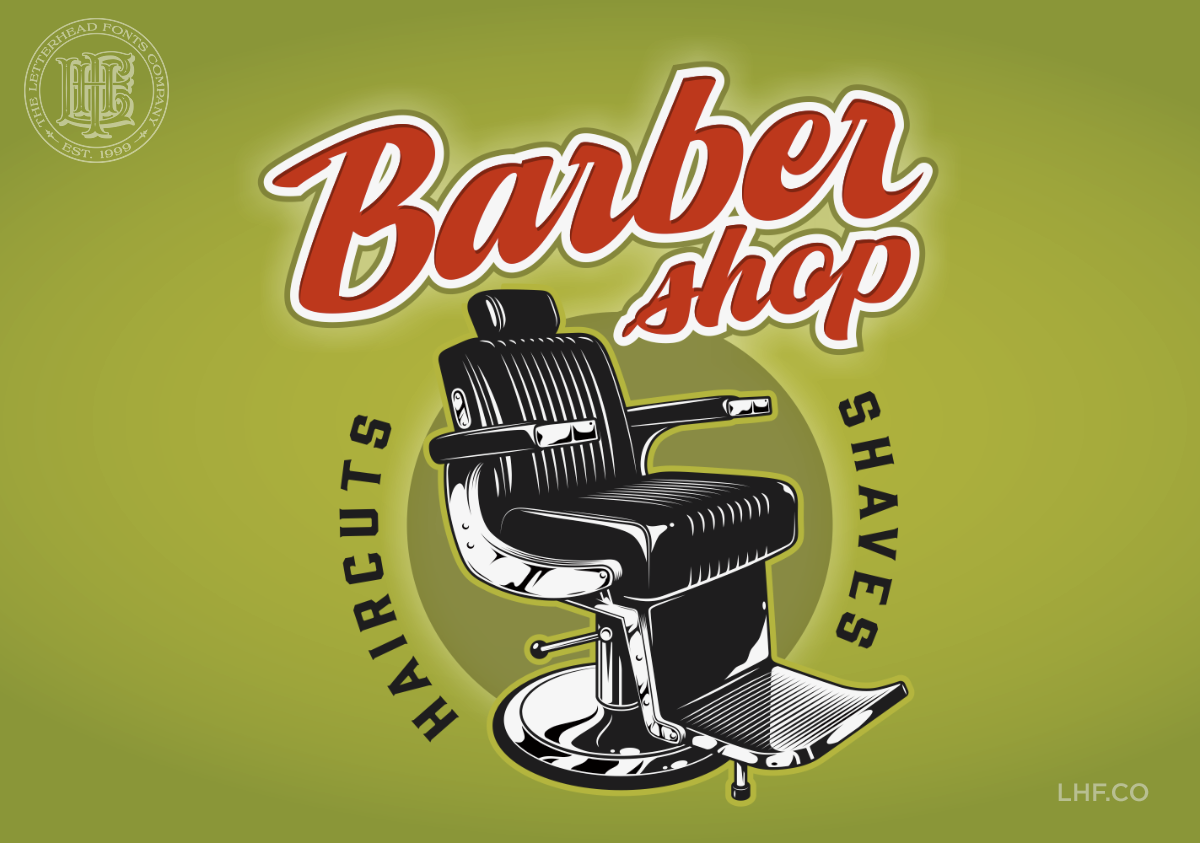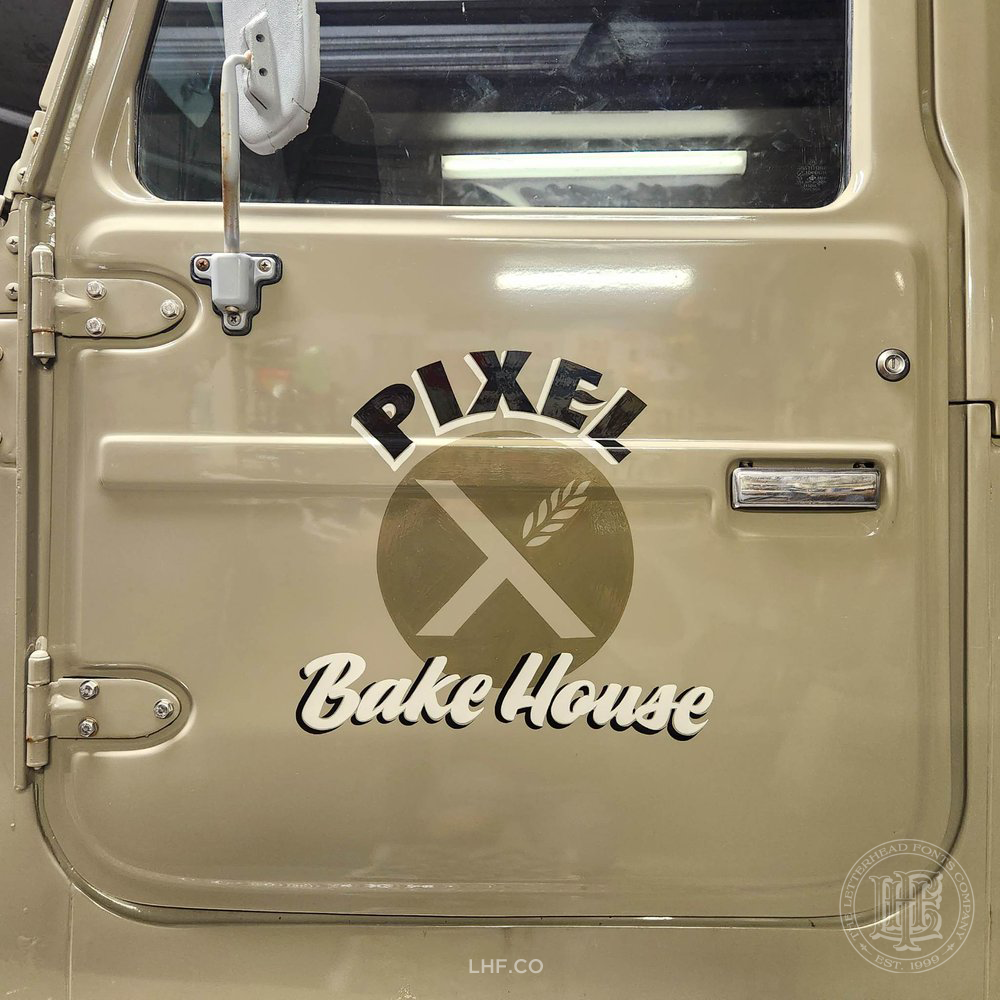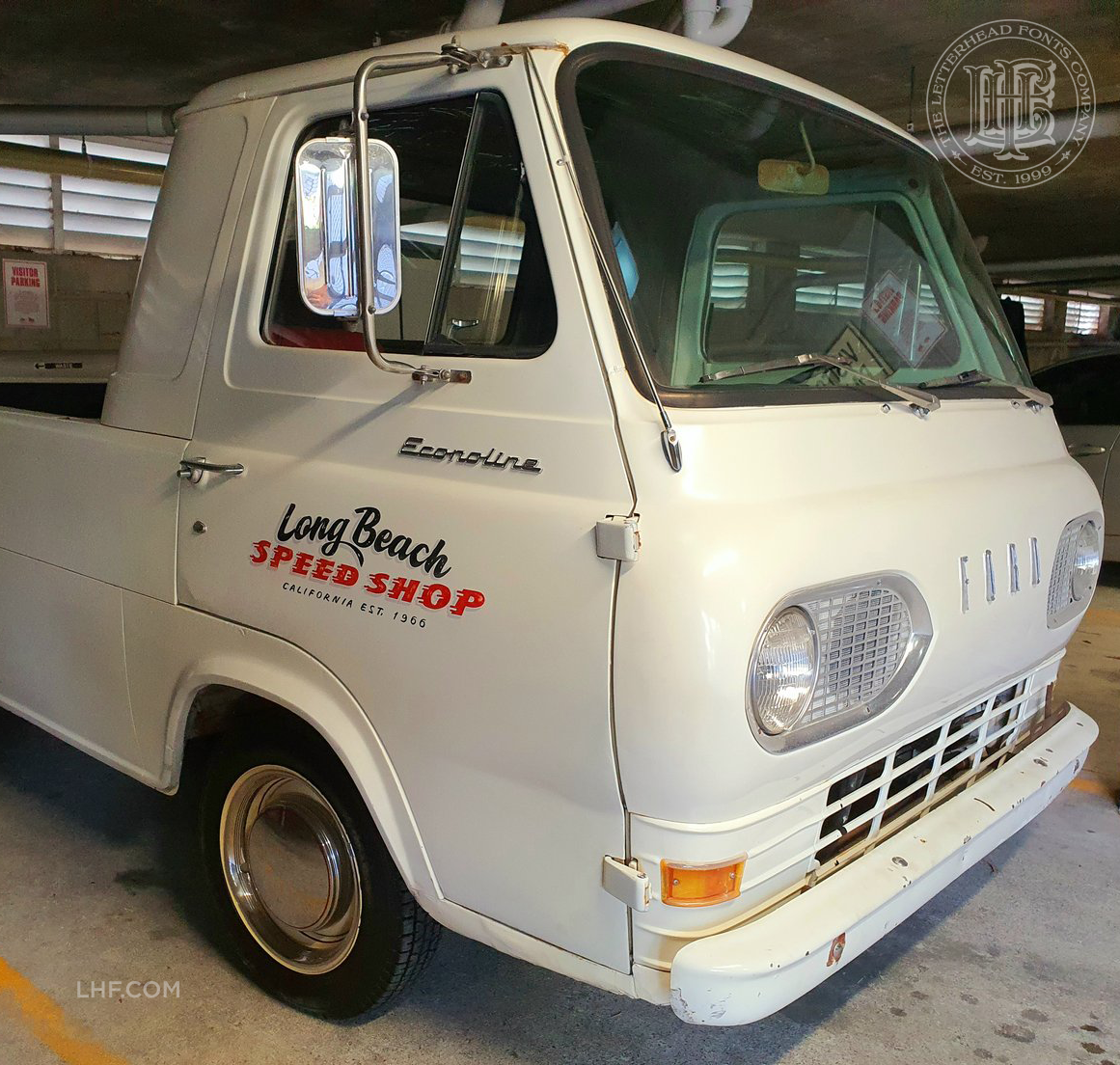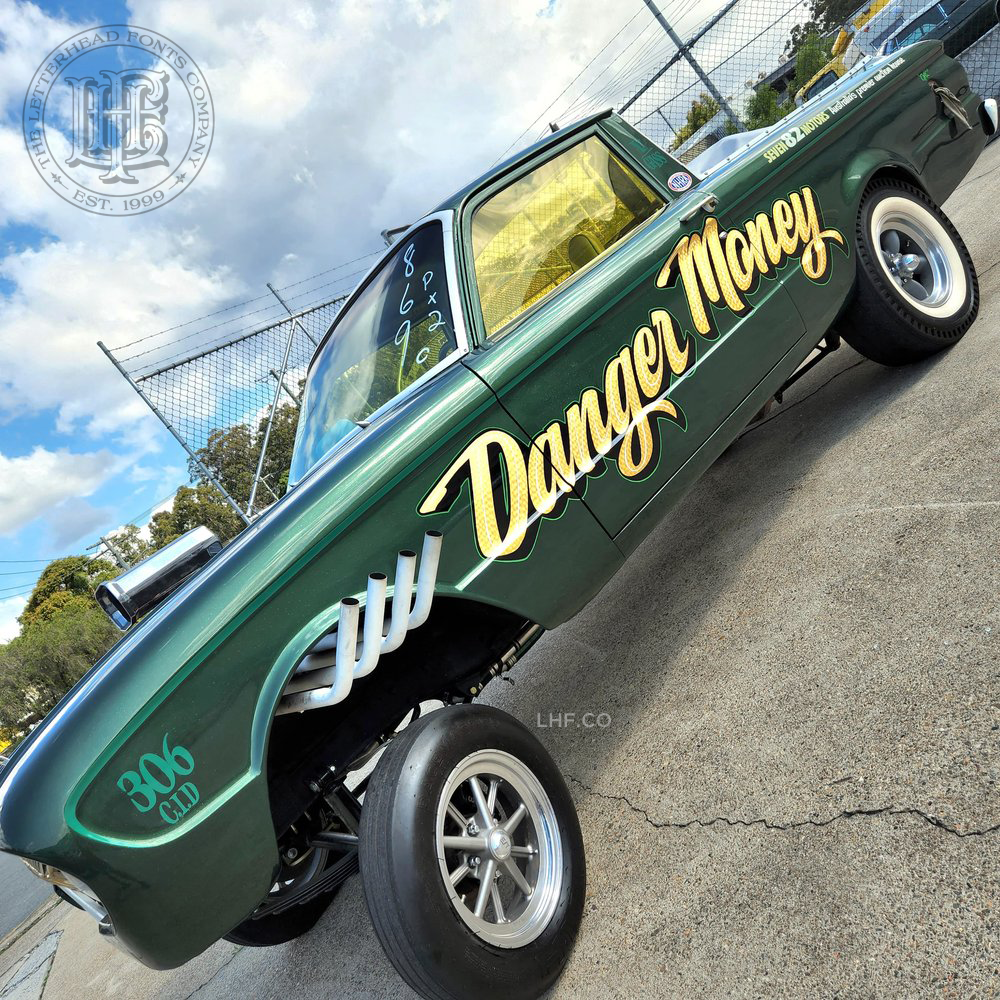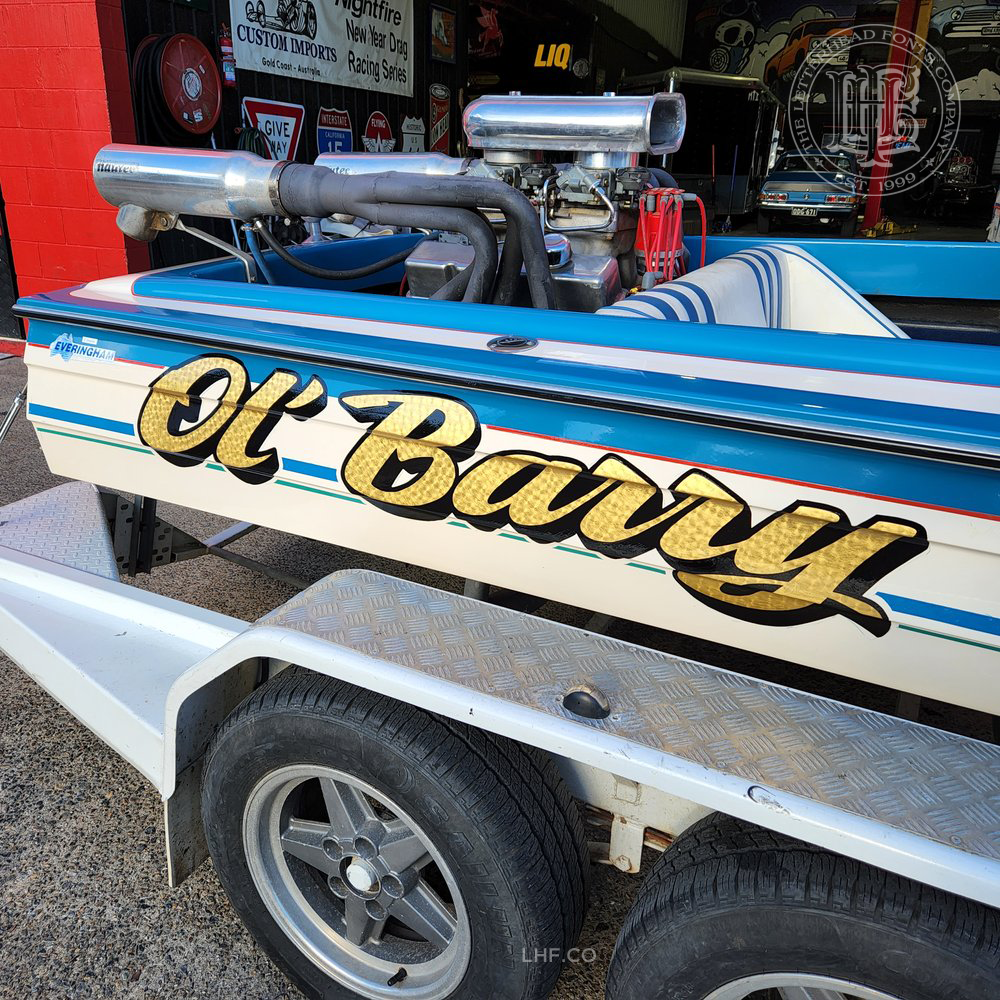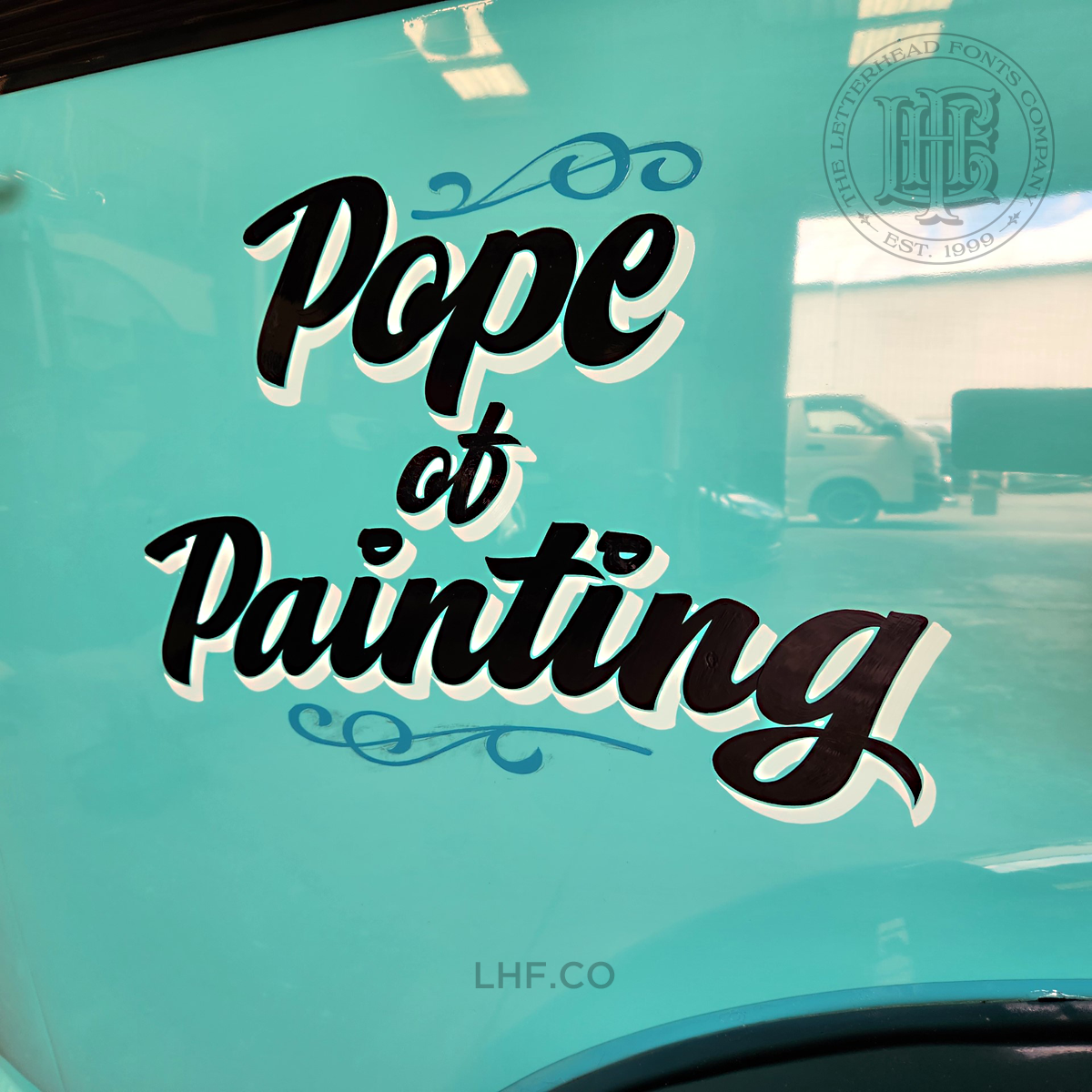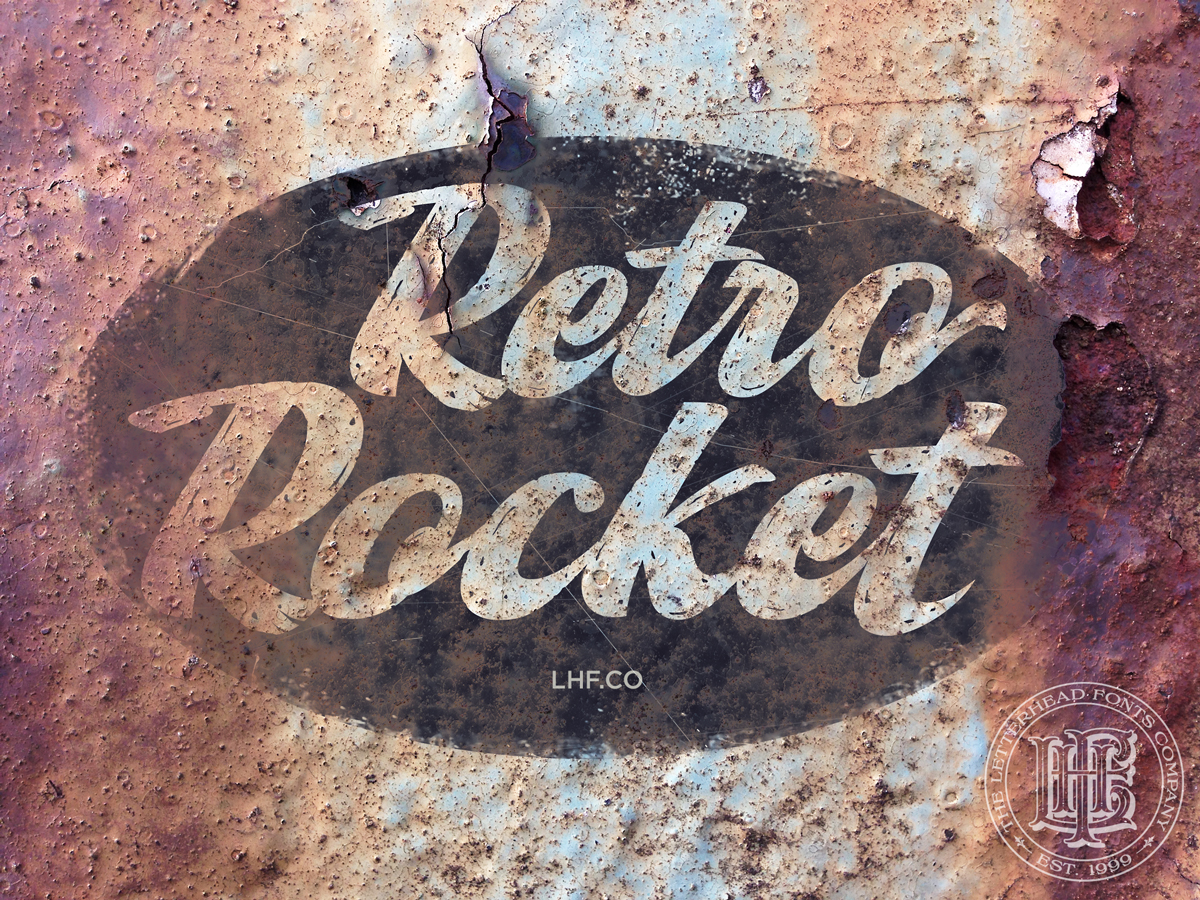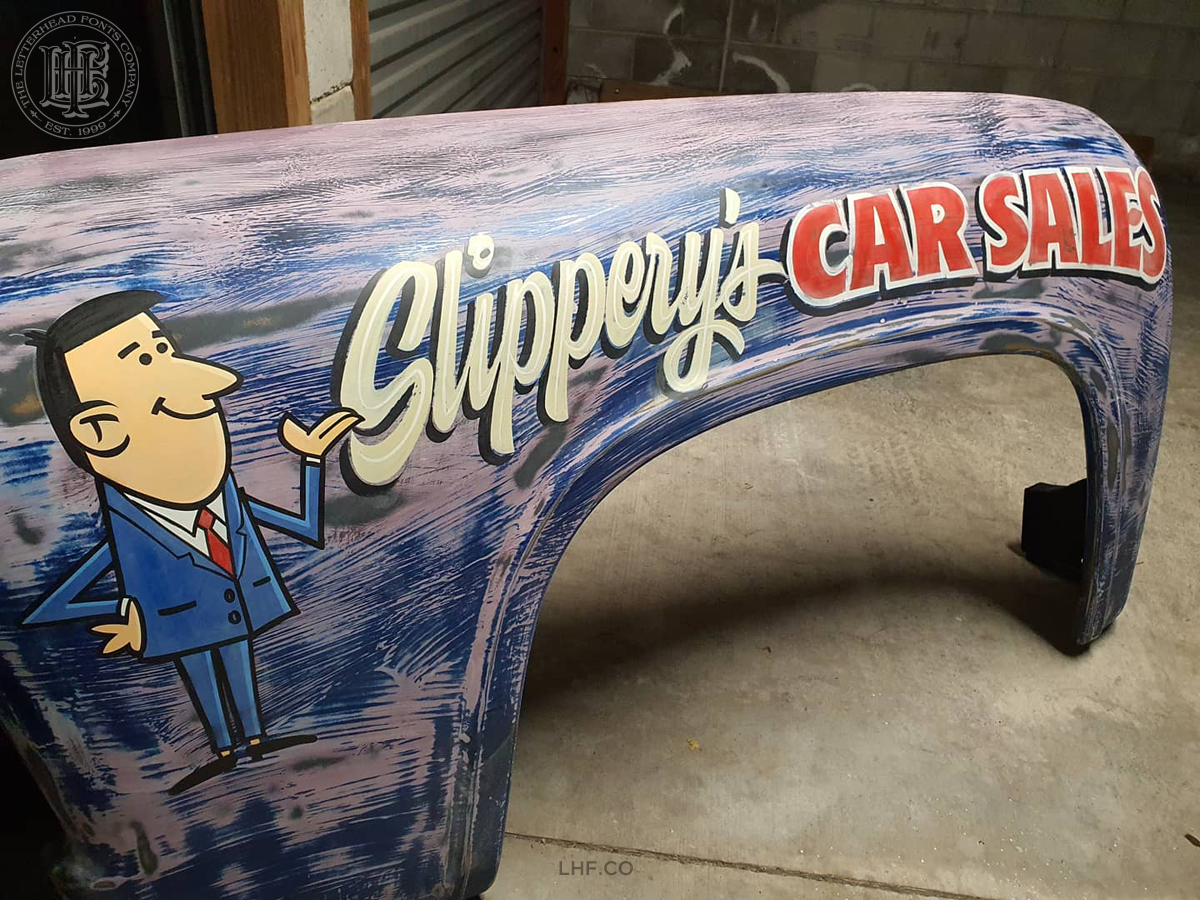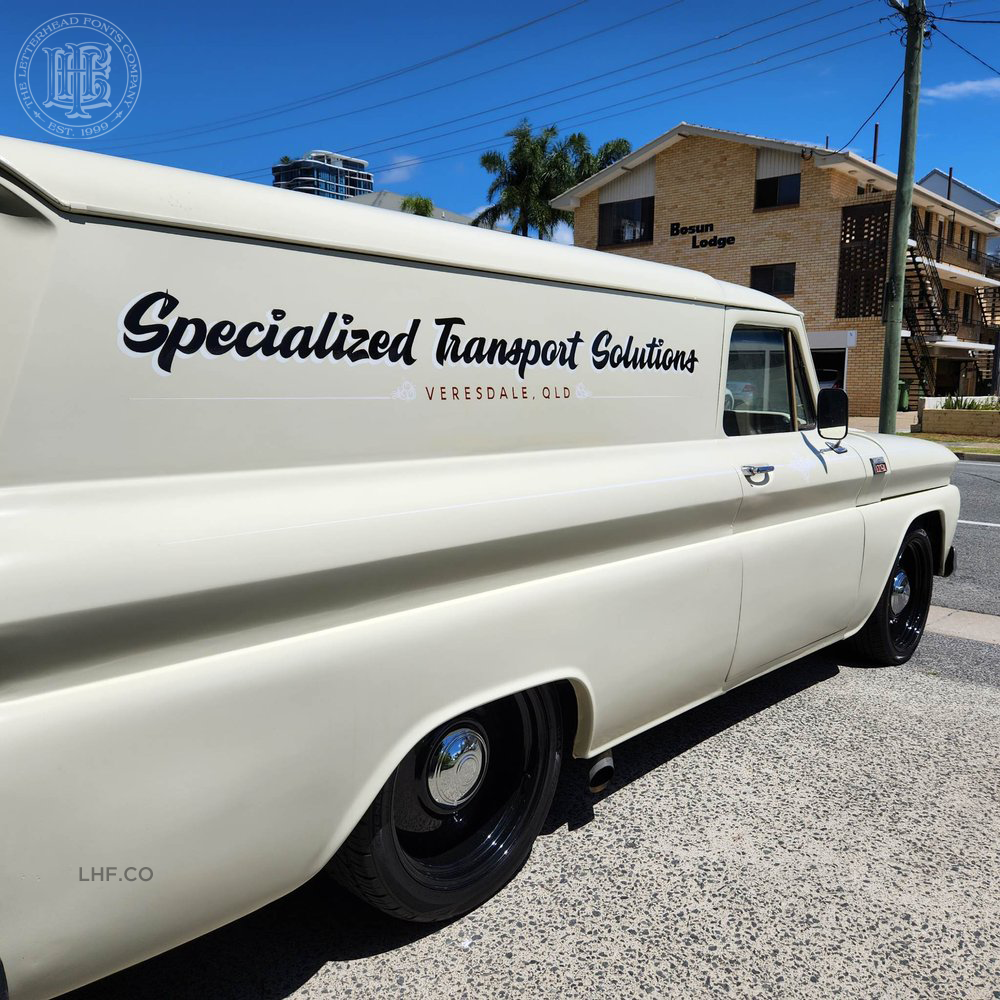
Now you can use the same script that veteran sign painter Jeff Marshall has been hand painting on vehicles and signs for years. Inspired by his mentor Ron Aplin, this unique letterstyle is both eye-catching and easy to read quickly. The thick letters allow you to be creative with inlines, color fades, engine turned gold leaf or even bevel effects.
Ron Aplin was a master of script and casual lettering and integral part of Jeff's signwriting apprenticeship in Australia. Jeff was fortunate to have worked alongside him for five years and adopt his style and techniques.